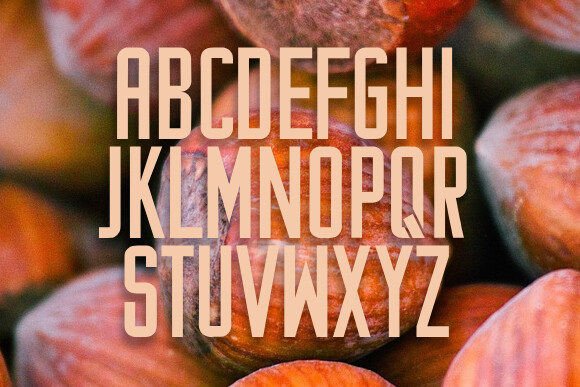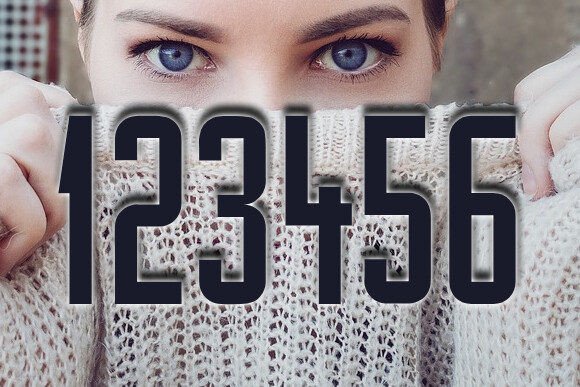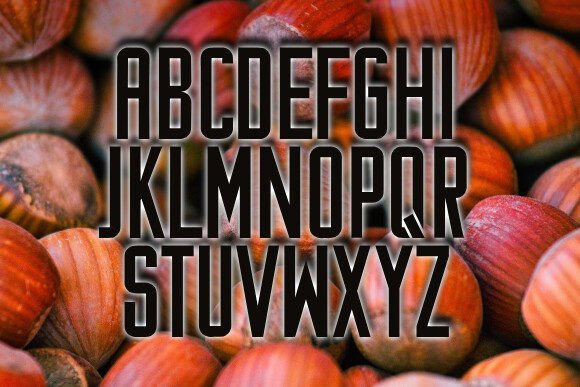
Enter the Around Font, a stunning display typeface designed to make your designs truly special. Whether you’re creating posters, flyers, or even t-shirts, this font is sure to grab attention and leave a lasting impression. With its unique style and versatility, the Around Font is a valuable asset for any designer looking to elevate their work and stand out from the crowd.
Around Font Key Features
- Font Family: Around Font is a sans-serif font family designed for digital use, with a focus on readability and versatility.
- Character Set: Supports a comprehensive character set, including Latin, Cyrillic, and Greek alphabets, as well as various punctuation and symbol characters.
- Unique Characteristics: Around Font features a clean and modern design, with a subtle rounded edge to the letterforms, giving it a friendly and approachable feel.
Around Font Review
As a designer, I was excited to dive into Around Font, a modern sans-serif typeface. Overall, I found it to be a solid addition to any design project.
- ✨ Versatility: Around Font is suitable for a wide range of applications, from body text to display headings.
- ✨ Legibility: The font is well-designed for reading, with clear letterforms and even spacing.
- ✨ Friendly appearance: The typeface has a friendly, approachable feel that works well for branding and marketing materials.
- ⚠️ Limited language support: While Around Font includes a wide range of language support, it’s not comprehensive, and some languages may not be fully supported.
- ⚠️ No bold or italic variants: For more dramatic effects, designers may need to look elsewhere, as Around Font only comes in regular weight.
Around Font is a reliable, modern sans-serif typeface that’s well-suited for a variety of design projects. While it has some limitations, its versatility and legibility make it a solid choice for designers looking for a clean, friendly typeface.
Tips for Getting the Most Out of Around Font
Experiment with different font sizes, colors, and styles to create a unique and eye-catching design.
Use the font’s advanced features, such as ligatures and contextual alternates, to add depth and personality to your text.
Combine the Around font with other fonts and design elements to create a visually appealing and harmonious design.
The Around font is perfect for:
– Creating eye-catching headlines and titles
– Designing unique and personalized letterheads
– Adding a touch of elegance and sophistication to your branding and marketing materials